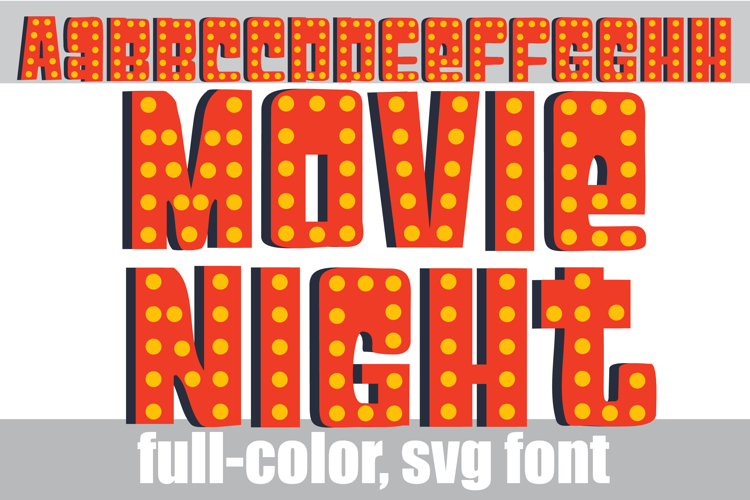
Movie Night Color Font
This full-color, sans serif font has little vehicles throughout. There is an alt case of additional colors of each letter that you can access through your system's character map.